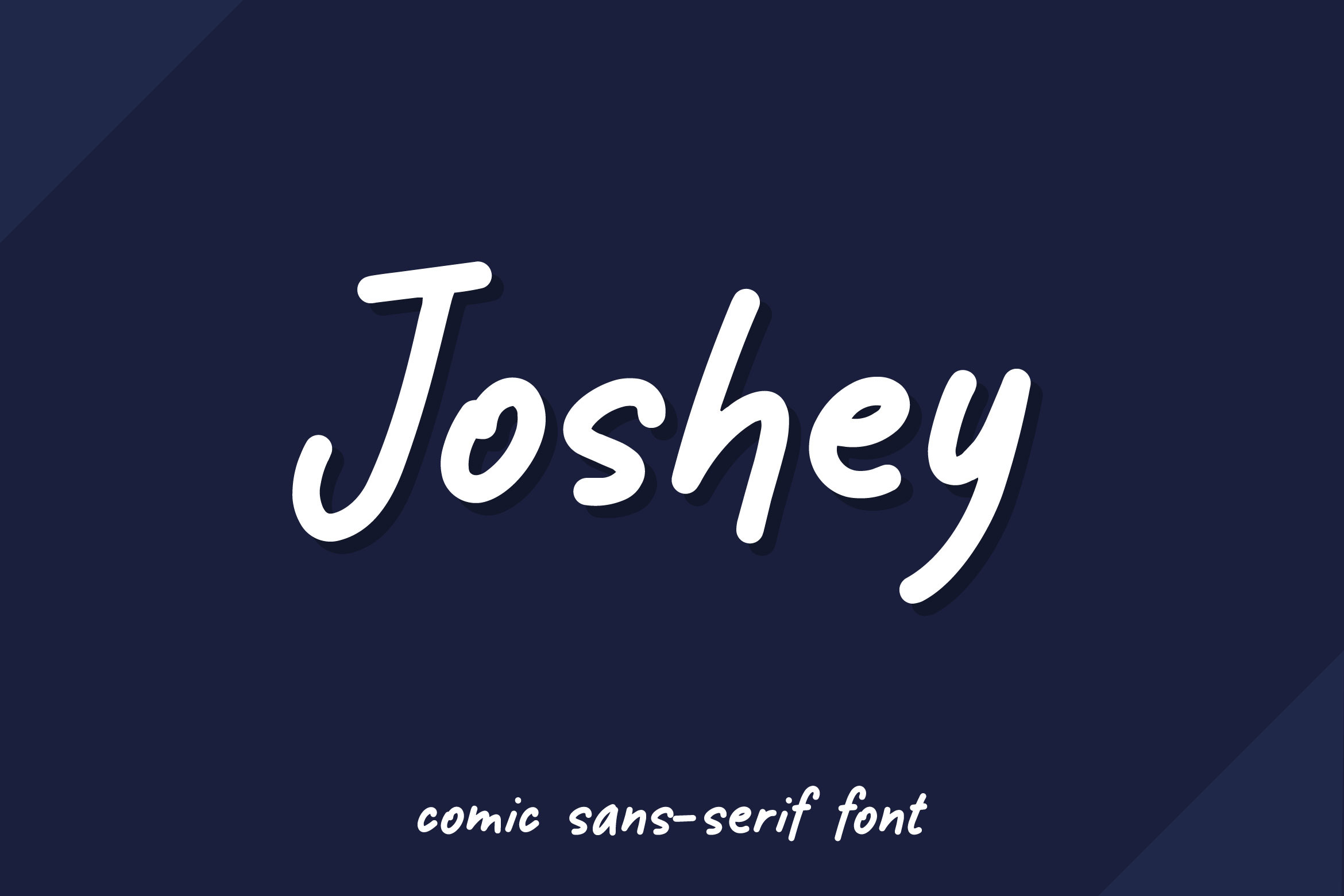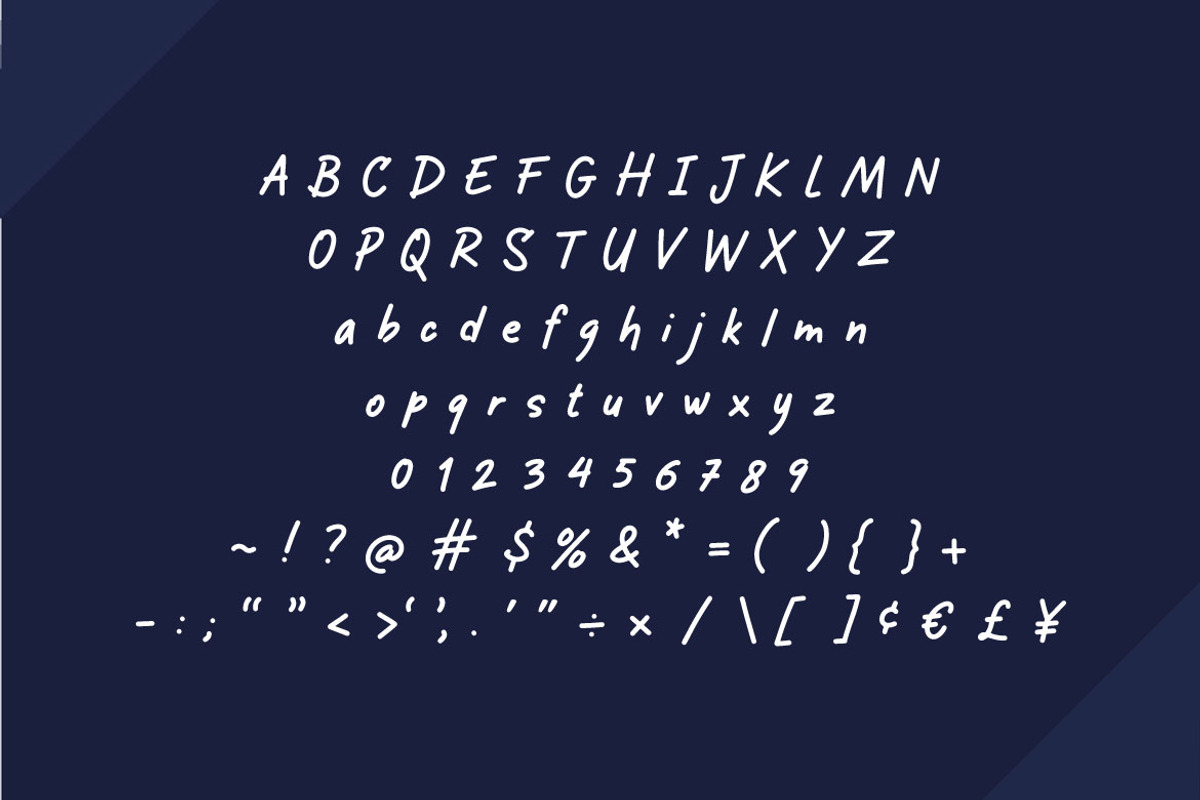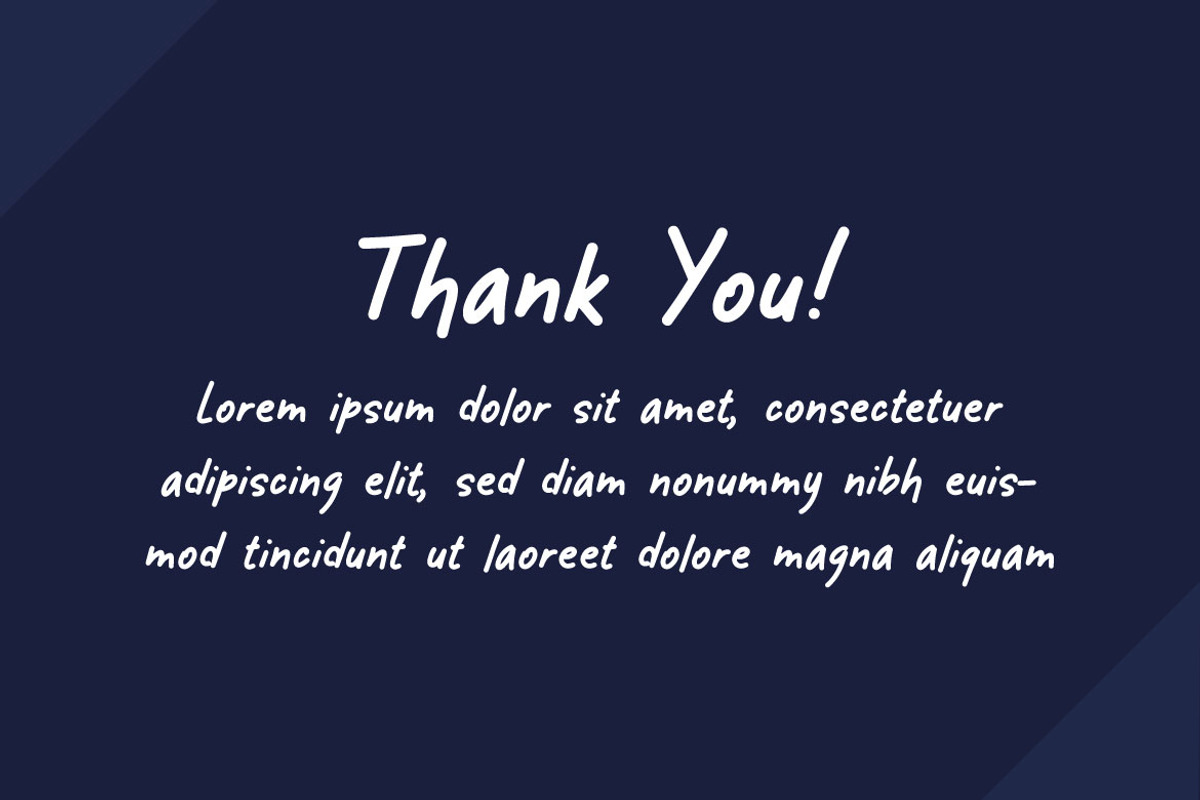
Joshey - Comic Font
JOSHEY is a modern comic cartoon display font. This font brings modern ambience in each word. Joshey can be used in any works such as book cover, music cover, children book, poster, advertisement, social media content, logo and many more, story book